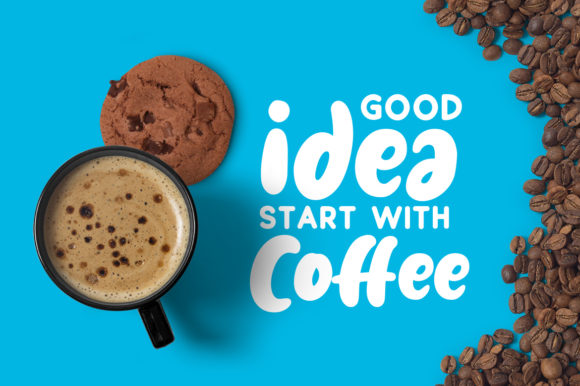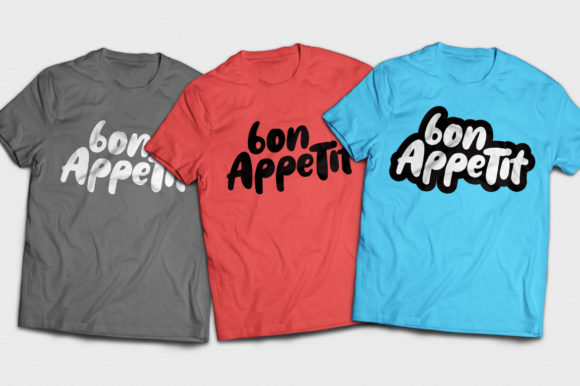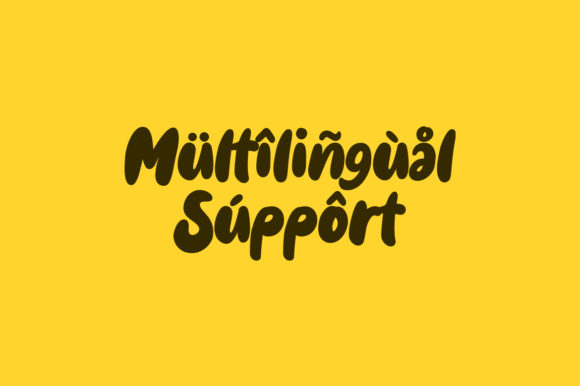
Introduction to Holyfat Font
Holyfat is an authentic handwritten font with a bold twist.
It will add an adorable charm to any design idea .
Key Features of Holyfat Font
Why Choose Holyfat Font?
Holyfat Font offers exceptional quality and versatility, making it a valuable addition to your design toolkit. Whether you’re creating for personal projects or commercial use, Holyfat Font delivers professional results.